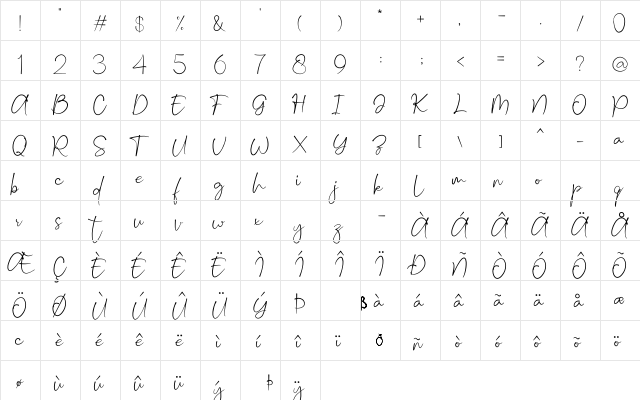
Sheryl (Demo) Regular
Design Context for Sheryl (Demo) Typeface
Sheryl (Demo) is a composed and adaptable typeface that performs quietly and consistently across a wide range of design contexts.